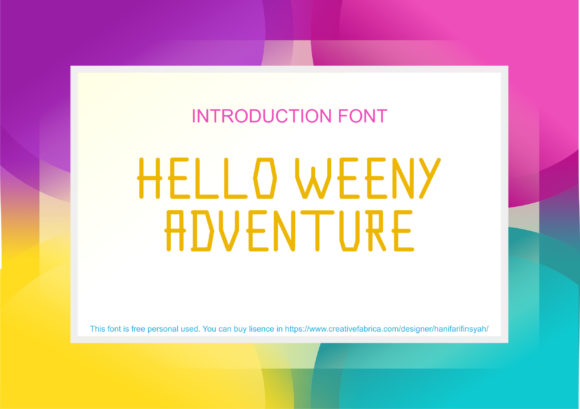
Step into the realm of typographic brilliance with Hello Weeny Adventure, a sans serif font that exudes an aura of innovation and contemporary flair. Prepare to be spellbound as this font family captivates your senses with its clean lines, subtle curves, and a touch of understated elegance.
Hello Weeny Adventure is not just a font; it's an artistic odyssey, an invitation to embark on a design journey like no other. Its crisp, legible characters dance across the page, inviting readers to immerse themselves in your words and ideas. With its striking presence, Hello Weeny Adventure commands attention without overpowering, allowing your content to shine while adding a layer of sophistication and style.
Crafted with meticulous precision, each letterform in the Hello Weeny Adventure family embodies a harmonious blend of modernity and timeless appeal. The smooth, flowing curves exude grace and fluidity, while the carefully balanced proportions create a sense of visual rhythm that captivates the eye. Whether you're crafting a captivating logo, designing a stunning website, or creating marketing materials that leave a lasting impression, Hello Weeny Adventure is your trusted companion.
Let your imagination soar as you explore the boundless possibilities of Hello Weeny Adventure. Its versatility extends across a wide spectrum of design projects, from sleek and minimalist layouts to bold and playful compositions. Unleash your creativity and let the font's inherent charm elevate your designs to new heights.
Hello Weeny Adventure is more than just a font; it's an experience. It's a journey into the world of visual storytelling, where words and design converge to create an impact that resonates with your audience. Embrace the transformative power of Hello Weeny Adventure and elevate your designs to remarkable new frontiers.
Join the growing community of designers, artists, and creative professionals who have discovered the allure of Hello Weeny Adventure. Let your imagination take flight and create designs that captivate, inspire, and leave an indelible mark on the minds of your audience.